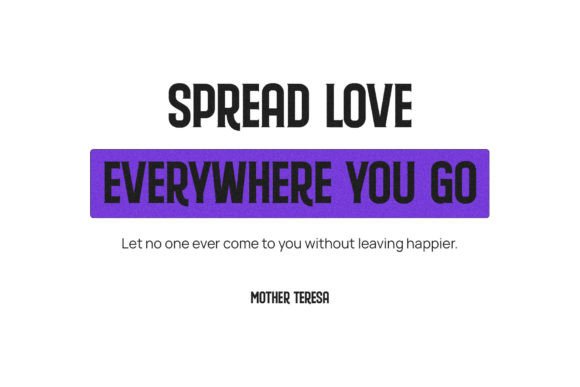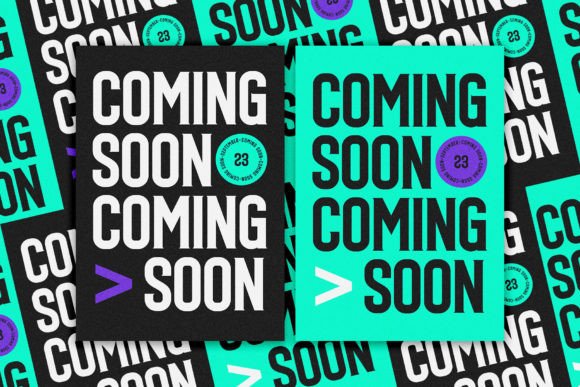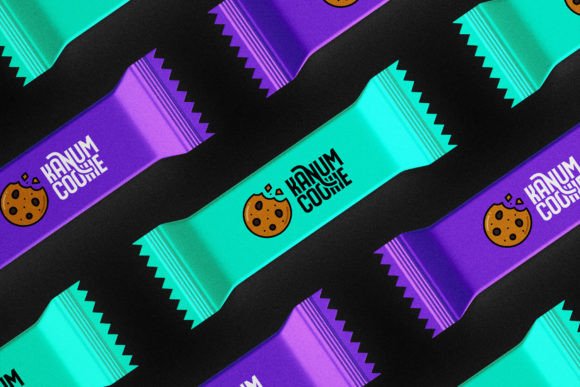
Introduction to Korona Font
You’re staring at a blank page, cursor blinking, waiting for that spark of creativity to strike. Your design project is on the horizon, and you know exactly what it needs – a sleek and modern touch. That’s where the Korona Font comes in – a game-changing design resource that will elevate your creative project to new heights.
With its clean lines and space-saving design, Korona Font is the perfect solution for designers seeking a polished and professional look. Whether you’re working on branding, headlines, or web content, this high-quality typeface delivers a contemporary and streamlined aesthetic that’s sure to impress. And the best part? You can download Korona Font for free, making it an invaluable addition to your design toolkit.
So, let’s dive into the world of Korona Font and explore its many benefits, from its transparent background to its versatility in various design contexts. Get ready to take your designs to the next level with this exceptional design resource.
Key Features of Korona Font
• Unique, modern design for creative projects and design resources.
• Transparent background, allowing for easy customization and integration with various design elements.
• Perfect for use in various creative projects, from logos and branding to typography and graphic design.
Honest Review: Korona Font
As a designer, I’ve had the chance to work with a wide range of fonts for my creative projects. Recently, I’ve been experimenting with the Korona Font, and I have to say, it’s been a great addition to my design resource library.
What works well is its unique blend of modern and elegant style, making it perfect for a variety of projects, from branding to digital design. The Korona Font is available for free download, and it’s easy to see why it’s become a popular choice among designers. It’s also highly customizable, allowing me to adjust the font to fit my specific needs.
• ✨ Unique style: Korona Font offers a distinctive look that sets it apart from more common fonts.
• ✨ High quality: The font is crisp and clear, even on small screens.
• ✨ Transparent background: This allows for easy layering and blending with other design elements.
My only issue with the Korona Font is that it can be a bit overwhelming when used in large quantities. The bold lines and geometric shapes can become too dominant, making it difficult to read or focus on other design elements.
Overall, I’m impressed with the Korona Font. It’s a solid choice for any design project, and I appreciate its versatility and customization options. While it may have some limitations, it’s a great addition to any designer’s library.
Getting the Most Out of Korona Font
To get the most out of Korona Font, use it in combination with other design elements to create a cohesive and visually appealing design. Experiment with different font sizes, colors, and styles to achieve the desired look.
Korona Font is commonly used in wedding invitations, event posters, and social media graphics. Its high quality and transparent background make it a popular choice for designers looking to create eye-catching and professional designs.